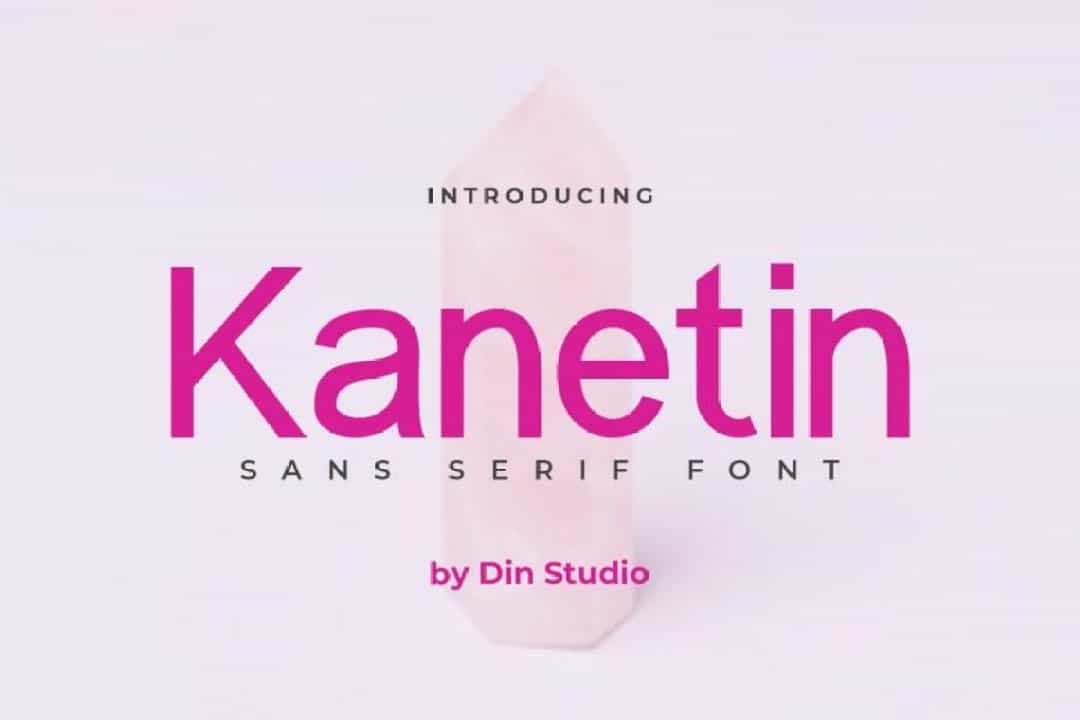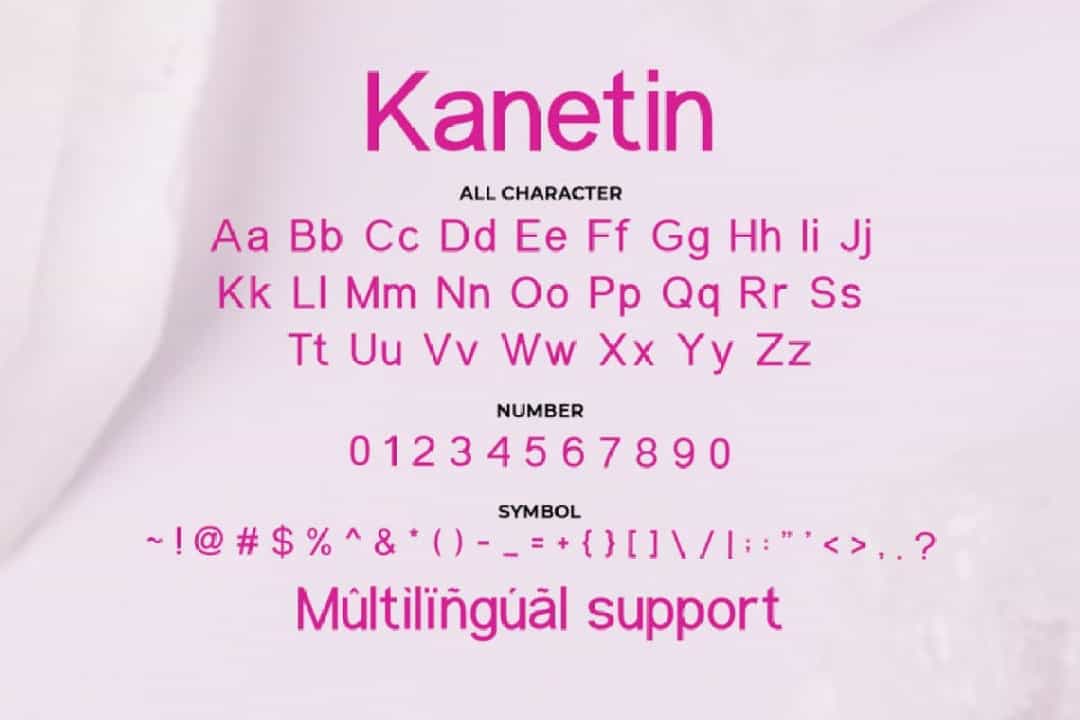
Kanetin is a modern, minimalistic and clean sans-serif font family. Ideal for the business purposes: branding, printing or quotes; each letter has its special design element. Kanetin Font can be best suitable for logos, branding projects, wedding designs, social media posts and stationery projects.